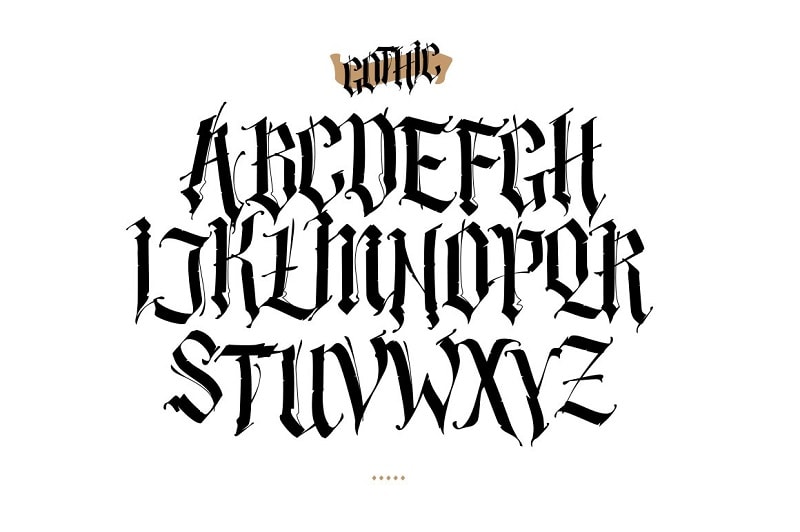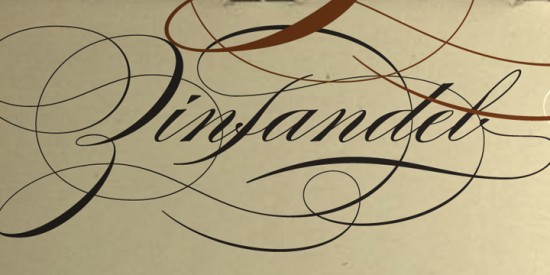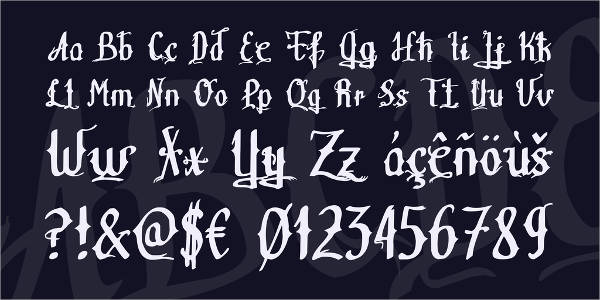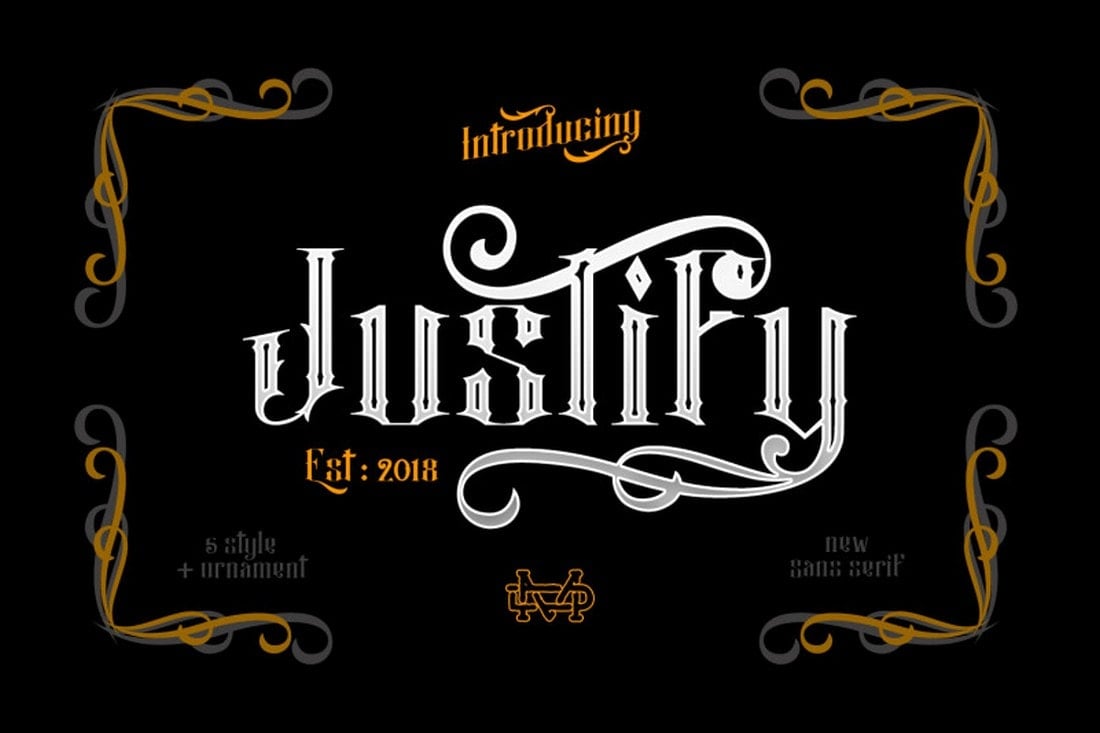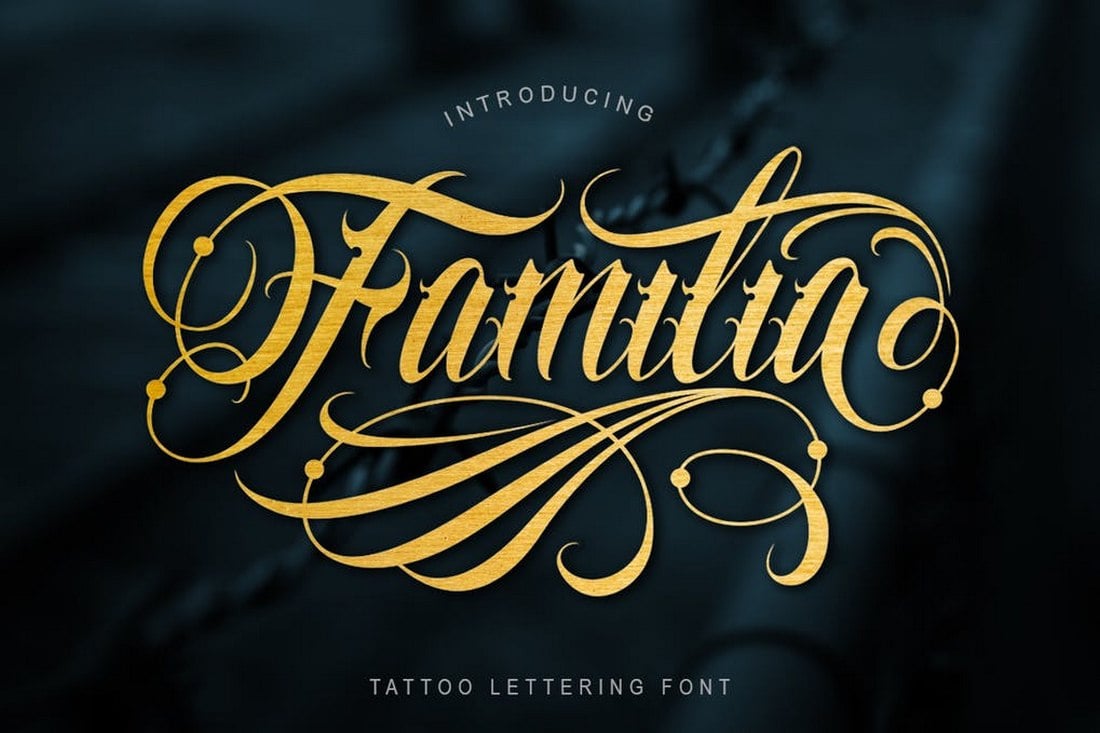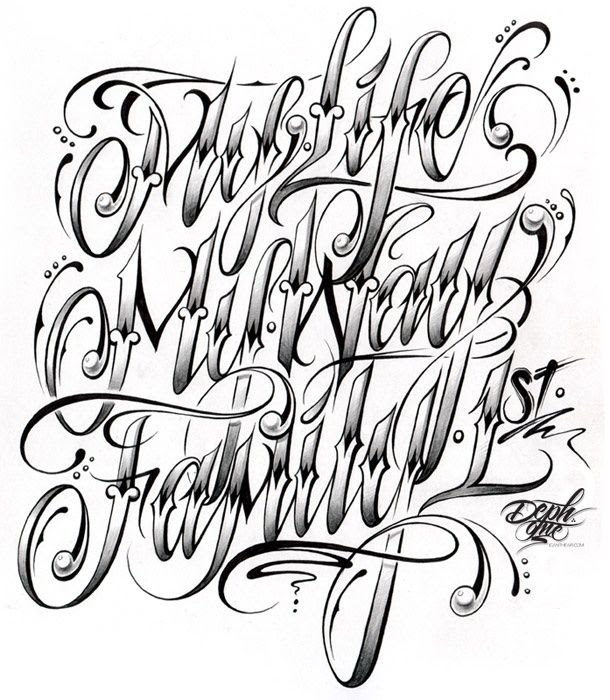
Ellida Bold Font by Wiescher Design Tattoo fonts cursive.
Tattoo lettering fonts alphabet. Picking a font for your next tattoo is a very important decision. Old English fonts are also used a lot in tattoo designs because they have a distinguished look and evoke some medieval atmosphere. We also offer a Font Free every week.
Find and download the right font for your next tattoo. This textual style has an engraving look and it makes it very much popular to be used. Famous artists have spent years creating custom script designs all with a unique look and feel.
This font also comes with a blackletter typeface design but with a look thats perfect for tattoo art style projects. Old English Font Generator. The tattoo scene is popular in all kinds of hardcore venues.
11 font styles from 1000. Text based art serves as a compliment to more complex forms of art and is generally added to tattoo art in the same way icing gets added to a cake. One font we like is Tattoo Girl designed by Otto Maurer as shown in the image below.
Fortunately we have many unique tattoo font styles for men and women such as calligraphy cursive and traditional styles. Lettering styles include tribal traditional sailor blackletter fancy cursive script etc. Fonts for tattoos drawings and decorations Font Text Generator.
Tribal tattoo is a ttf font and its free for personal use. Words of wisdom quotes custom text and more can be included with your tattoo in beautiful custom lettering. Celtic fonts graffiti fonts blade fonts etc.
Tattoo Ink by Ryan Splint. Diara Tattoo FONT Download. The Old English is also called Blackletter that was started back about 1000 years ago.
AZ Sailor Tattoo by Artist of Design. Looking for Tattoo Lettering fonts. Font design and ideas make the perfect compliment to any tattoo.
Little Lord Font Leroy - Nicks Fonts. Old-styled type of text is generated with the help of a tattoo writing generator tool. The font comes with lots of alternates and ligatures as well.
Handwritten script font is one of the greatest additions to alphabetical text in history.